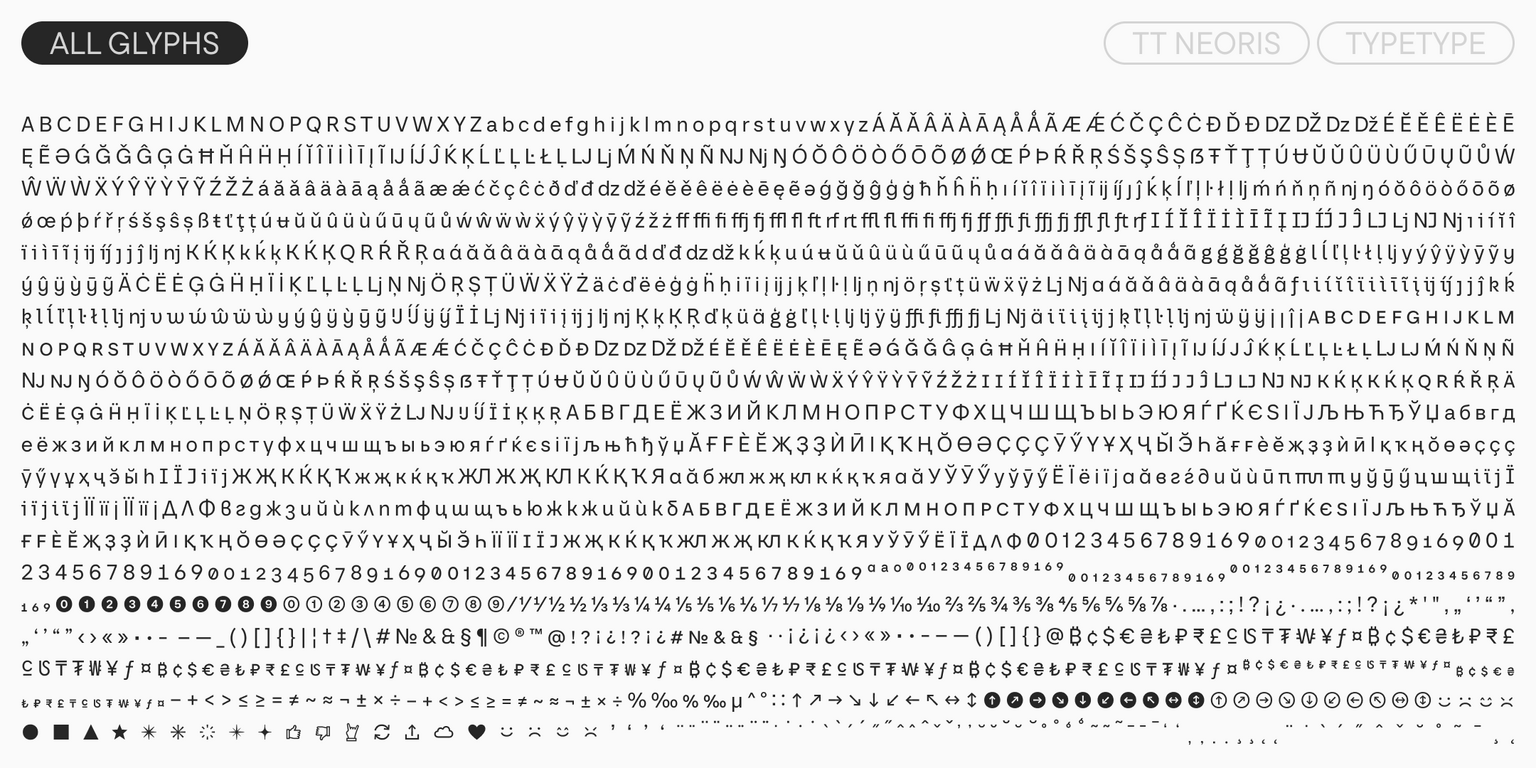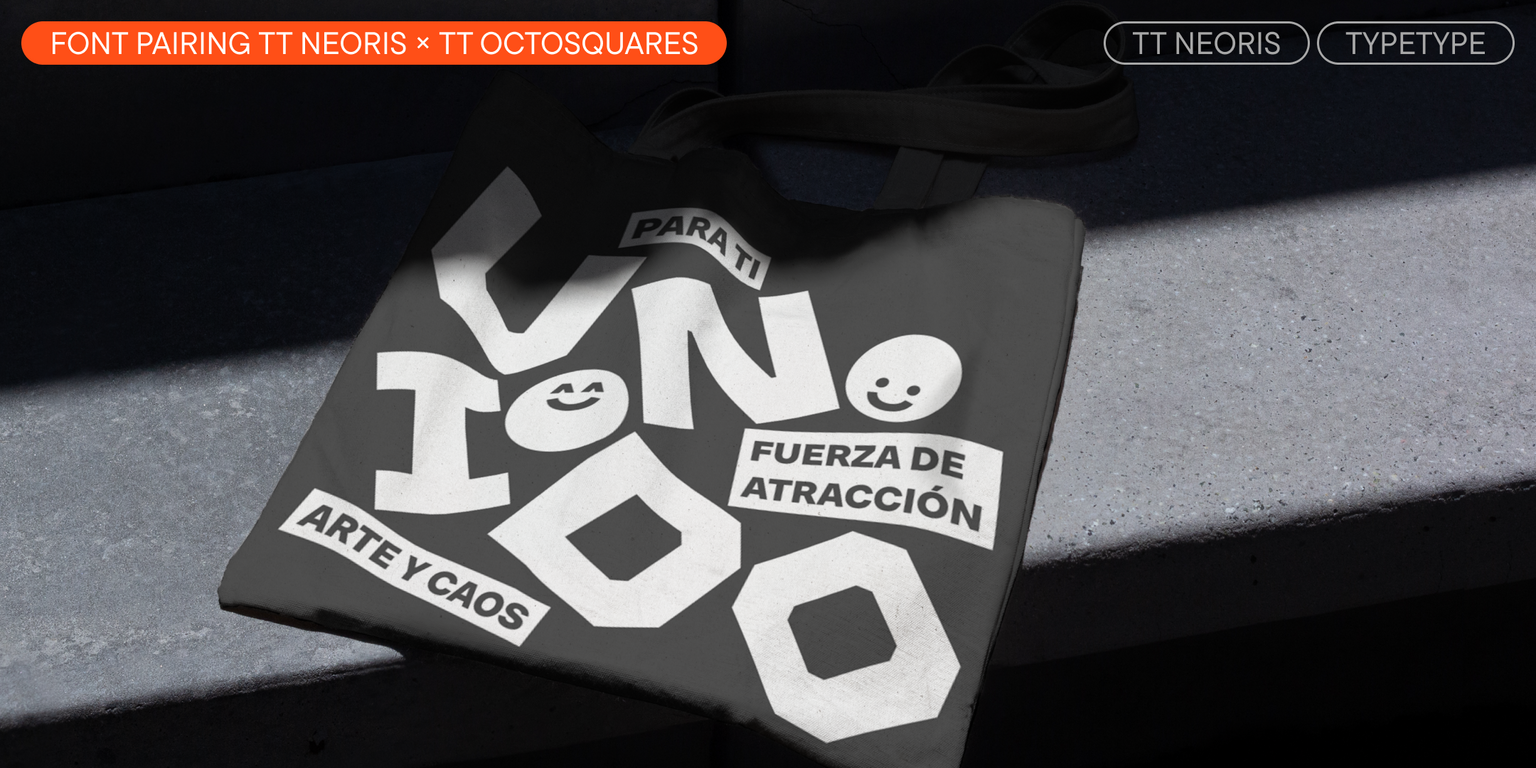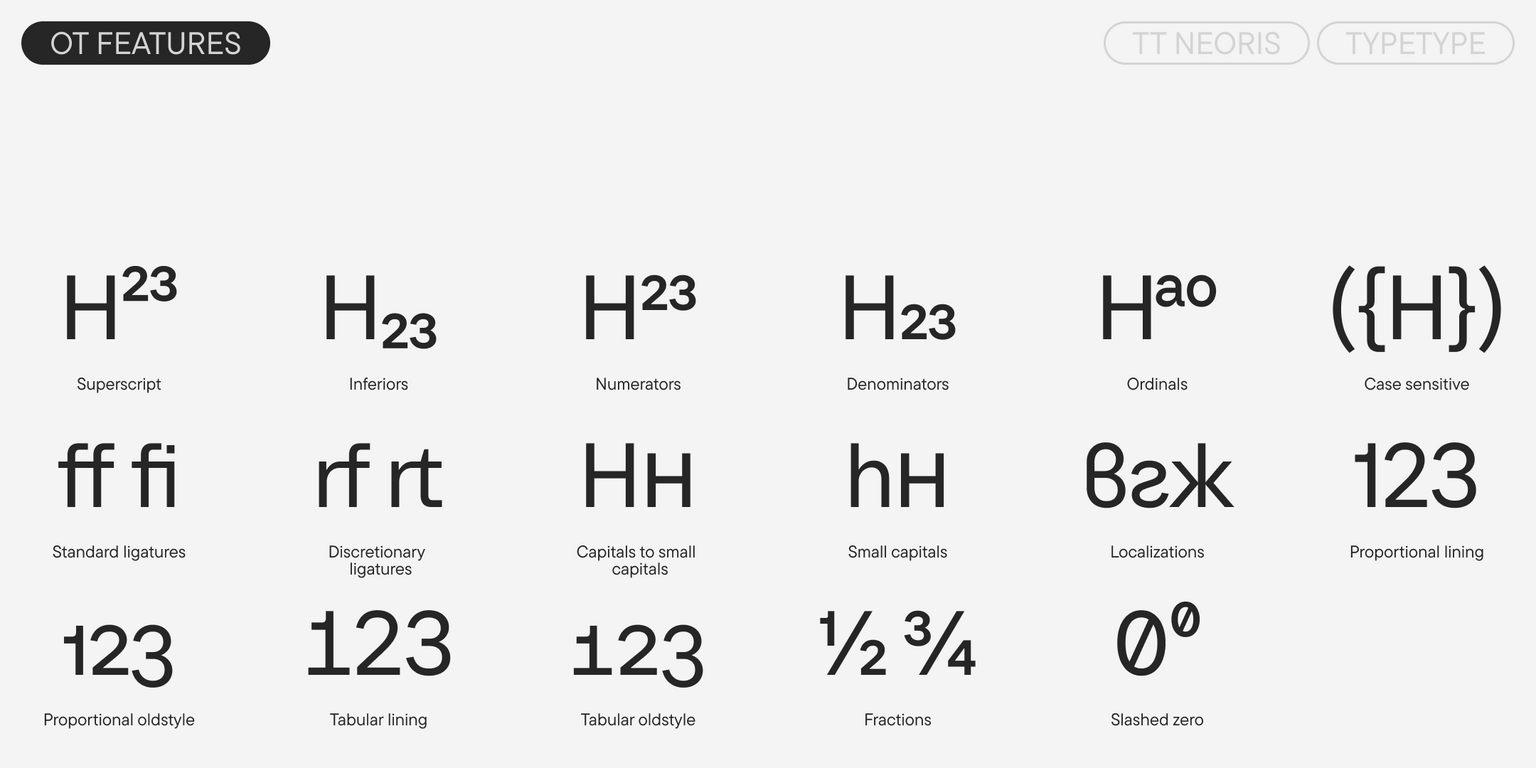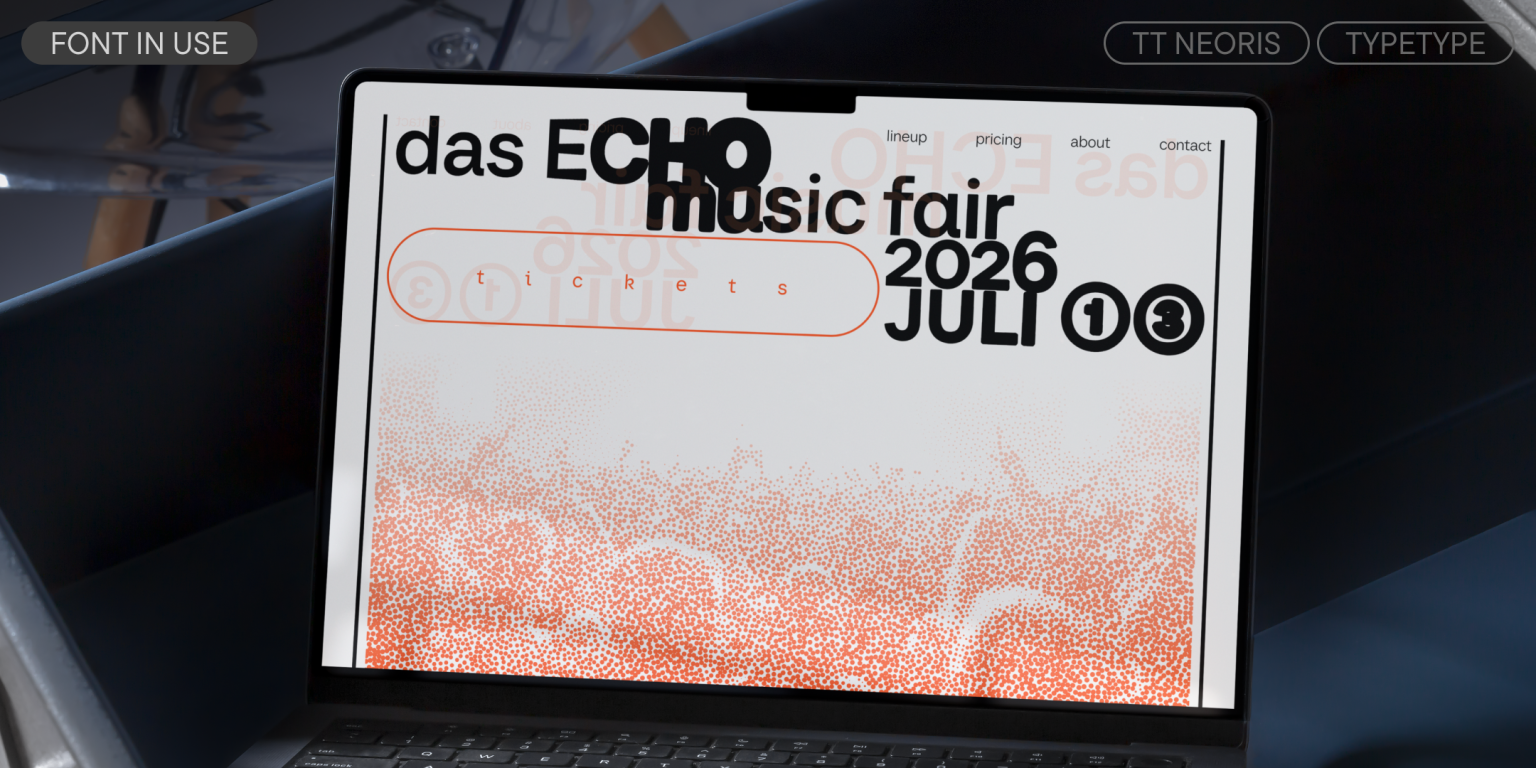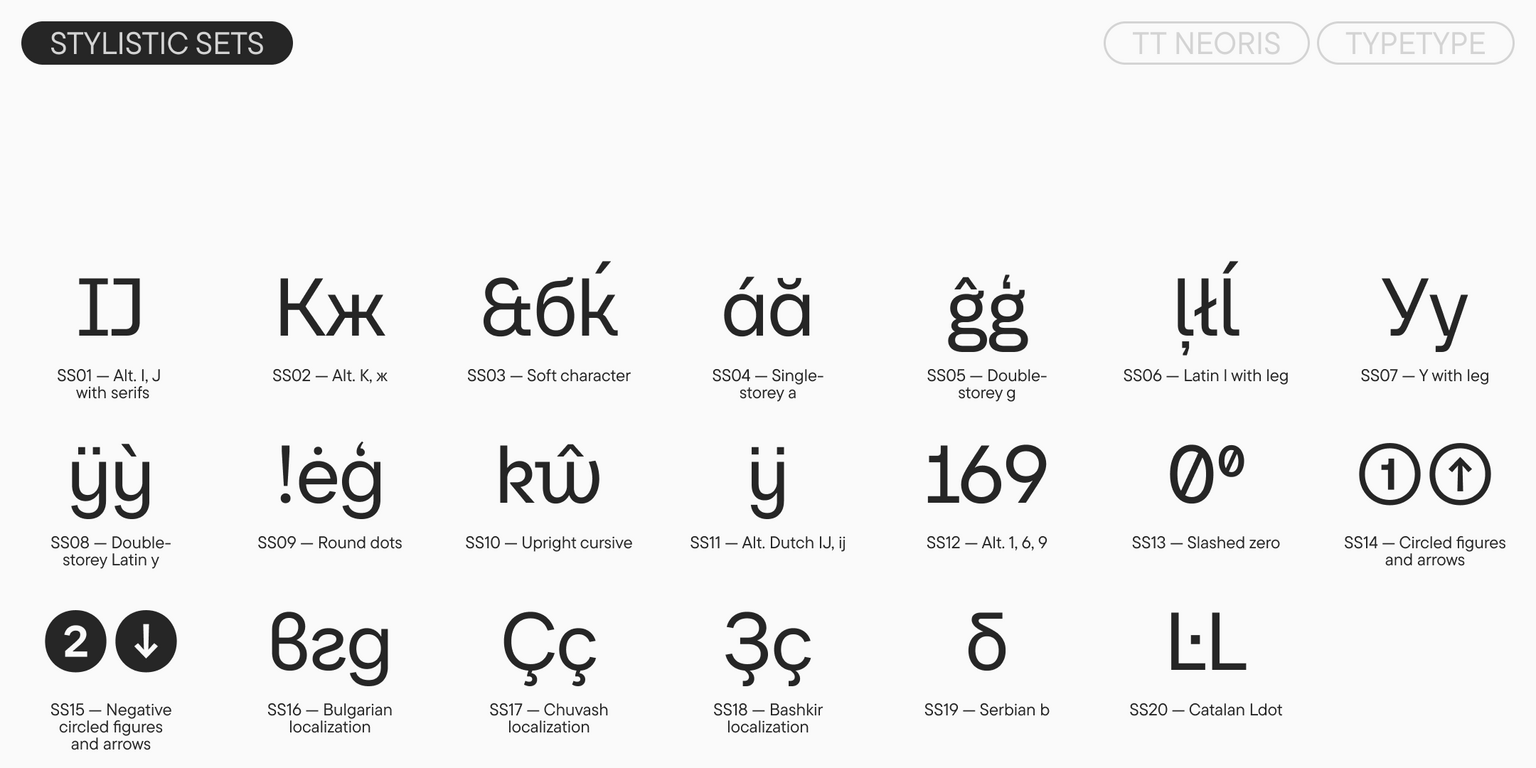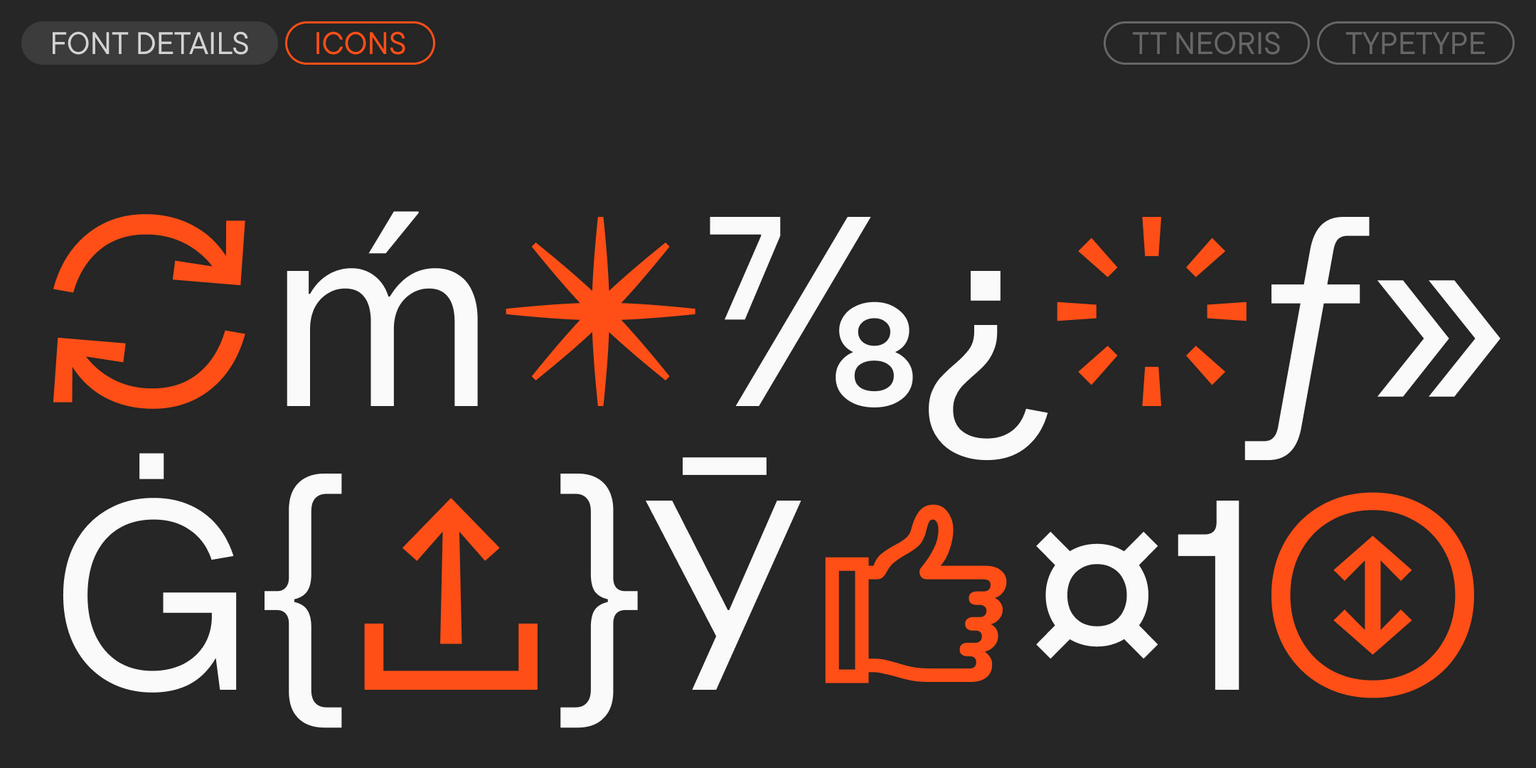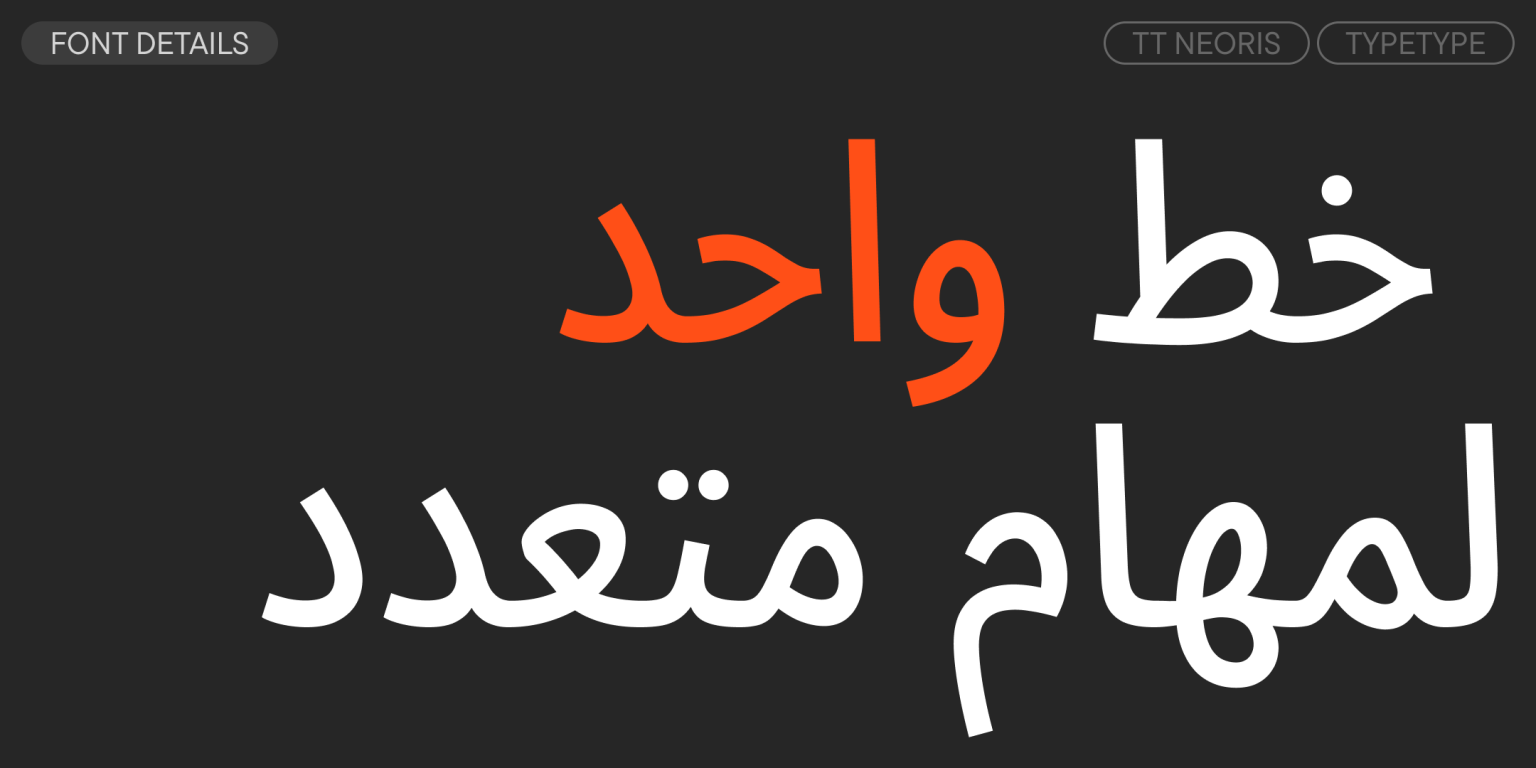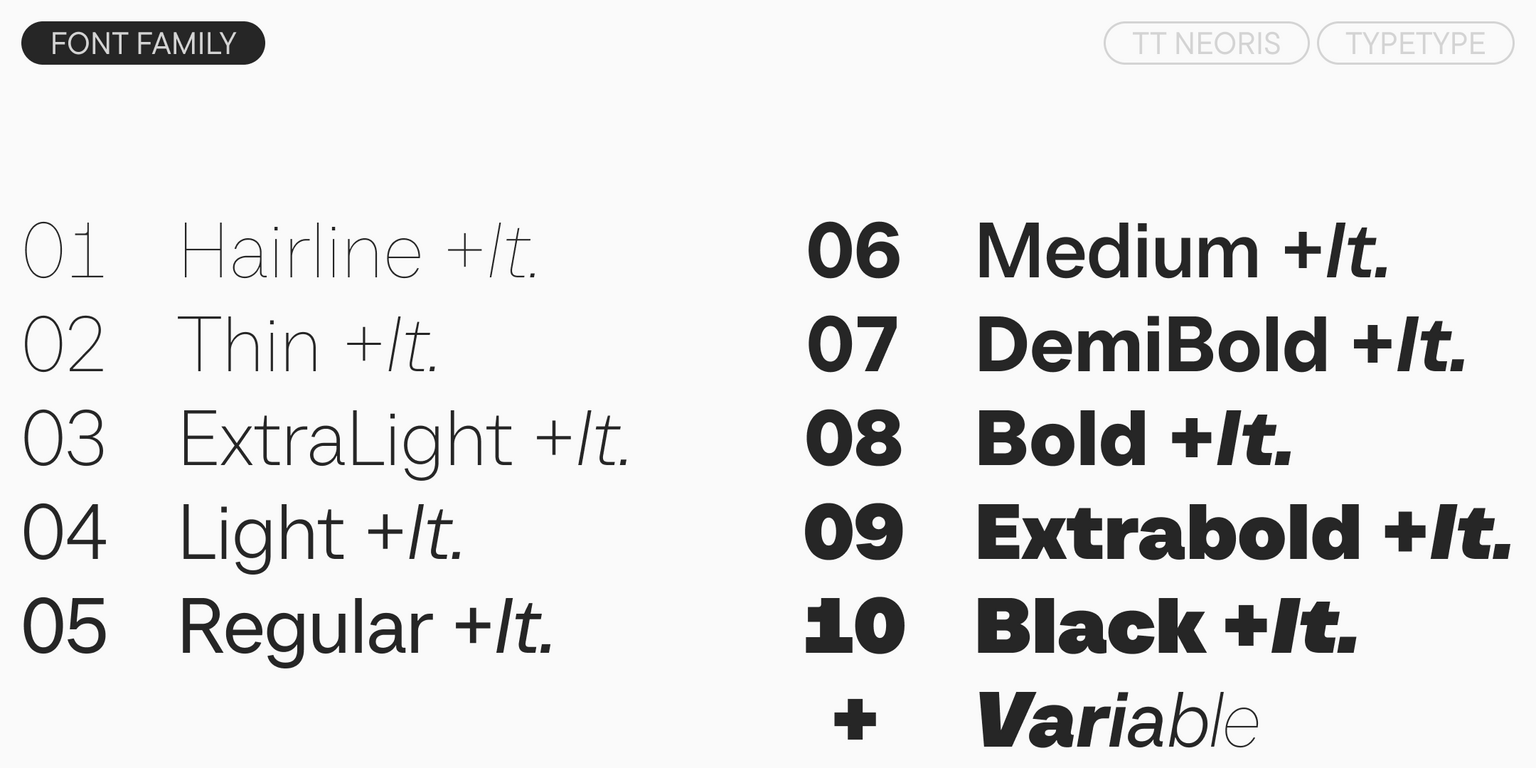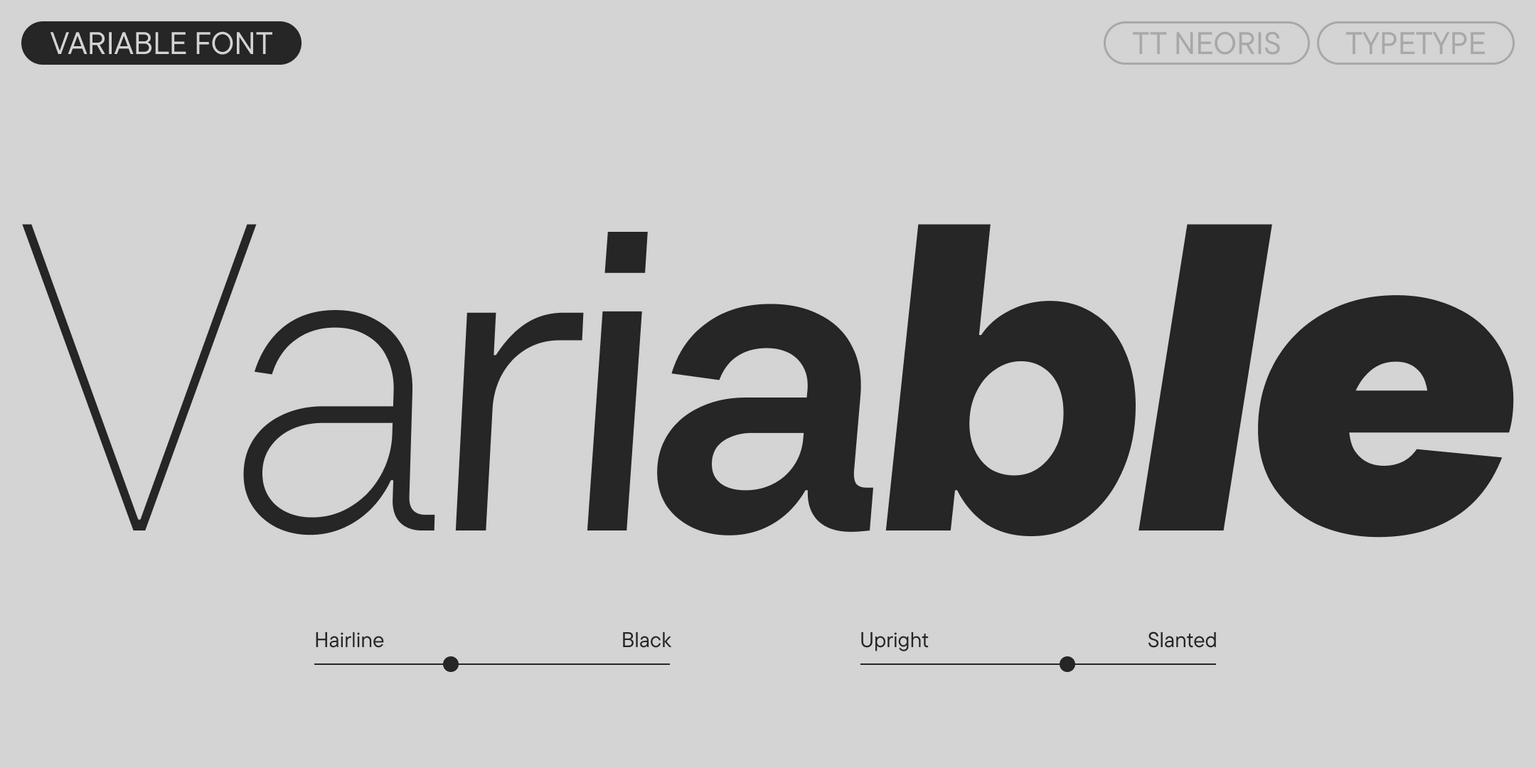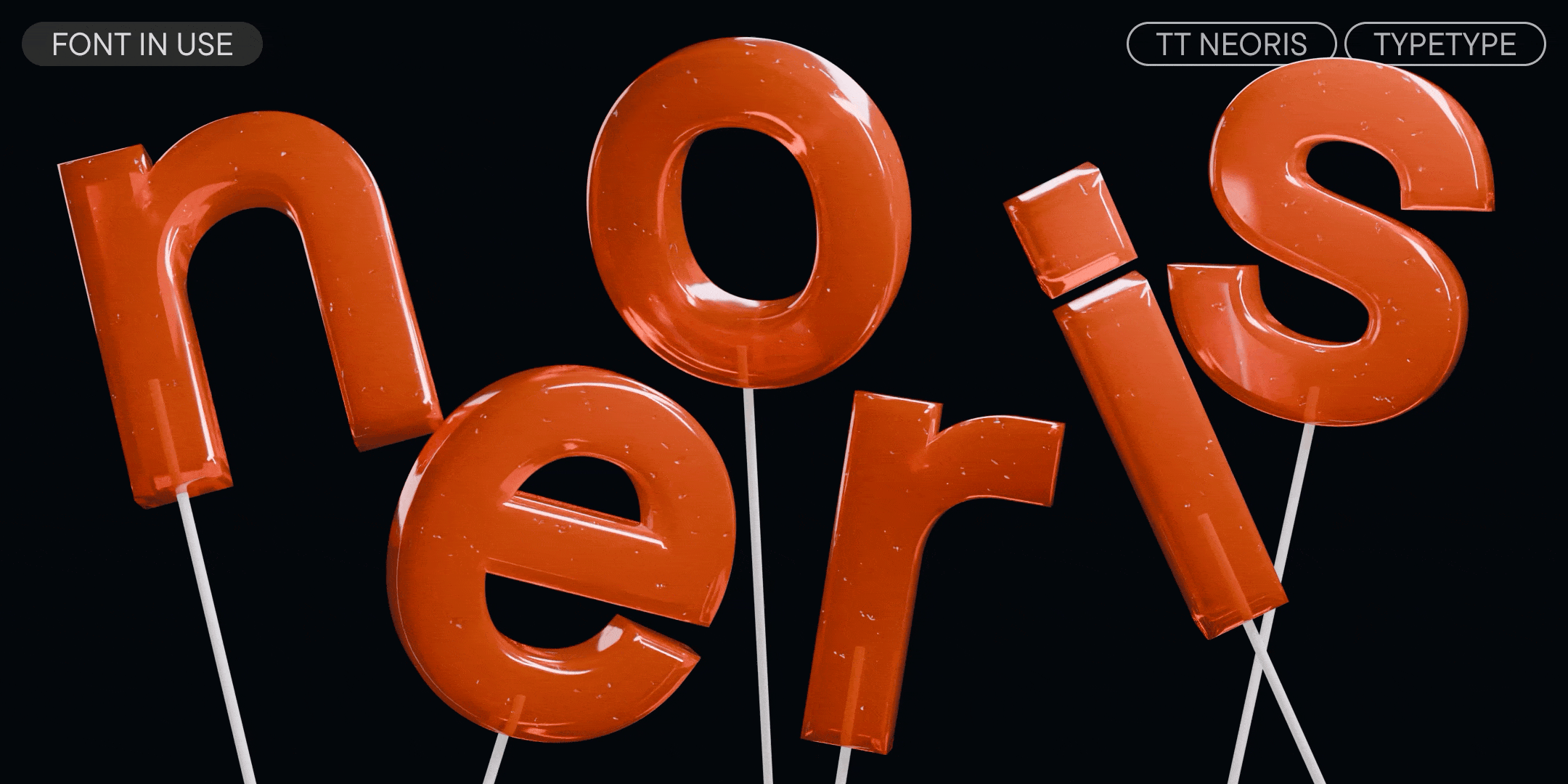
TT Neoris Pro
TT Neoris Pro is a versatile Neo-Grotesque with extraordinary flexibility. It is a true chameleon typeface that adapts to various design contexts and requirements.
TT Neoris—neo-grotesque for universal use
We have developed the TT Neoris font family for two and a half years. The first four months of work were dedicated to studying the font market and resulted in fundamental ideal sans research. What should an all-purpose and convenient font for modern design look like? Which letterforms are the most archetypal for a contemporary font? How large should the character set of a versatile Neo-Grotesque be? During the research process, we answered these questions and many others. With the first sketches, we aimed to find the character of the future font because this is what sets the direction for the entire project. In the early design stages, we tried to achieve the weightiness of the boldest font style, making its letterform completely identical to the regular. After this, months of hard work were invested in the font family, and it was the most challenging and complex project we have ever done.
Simple, expressive, understandable, versatile
2900 hours of work on the project
OpenType features
ss02 | Alt. Latin K, k
ss03 | Soft character
ss09 | Round dot
ss10 | Upright cursiv
ss12 | Alternative 1, 6, 9
ss14 | Circled figures and arrow